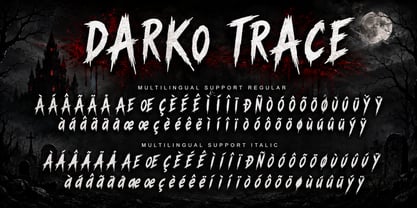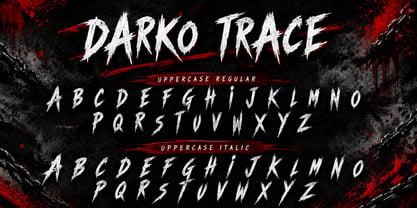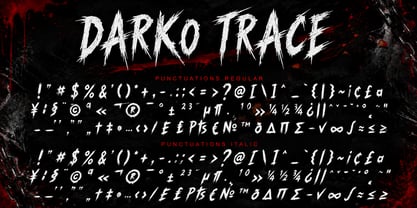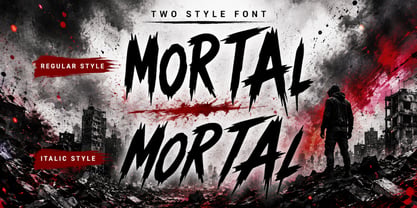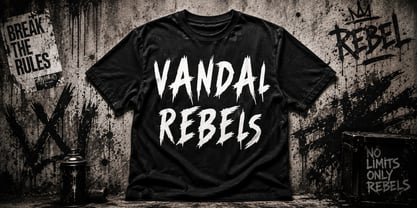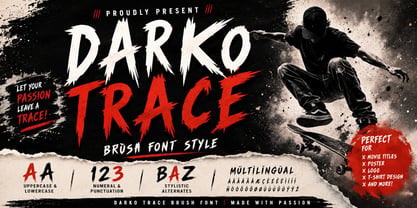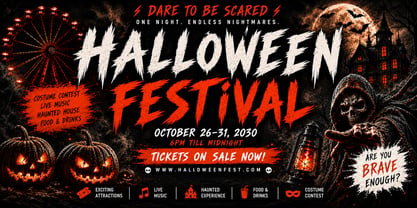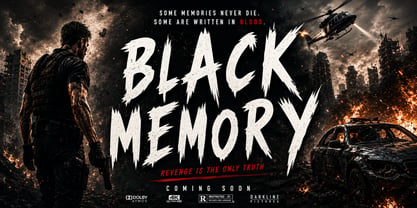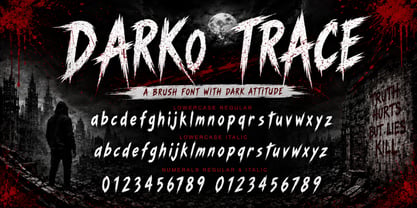
Darko Trace Italic
by Yoga Letter
The Darko Trace Italic Font Family was designed by Isroni Yoga Prasetya and published by Yoga Letter. Darko Trace Italic contains 2 styles and family package options. More about this family
Darko Trace is a striking brush font defined by its bold, sharp strokes that deliver an intense and fearless visual impact. Perfect for action movie titles, horror posters, gaming graphics, and street style branding, this font adds a unique flair to your designs. It features multilingual support, stylistic alternatives, and comprehensive punctuation, offering both creativity and versatility. Elevate your projects with a strong, handcrafted aesthetic that guarantees your designs make a lasting impression.
Designers: Isroni Yoga Prasetya
Foundry: Yoga Letter
Darko Trace Italic